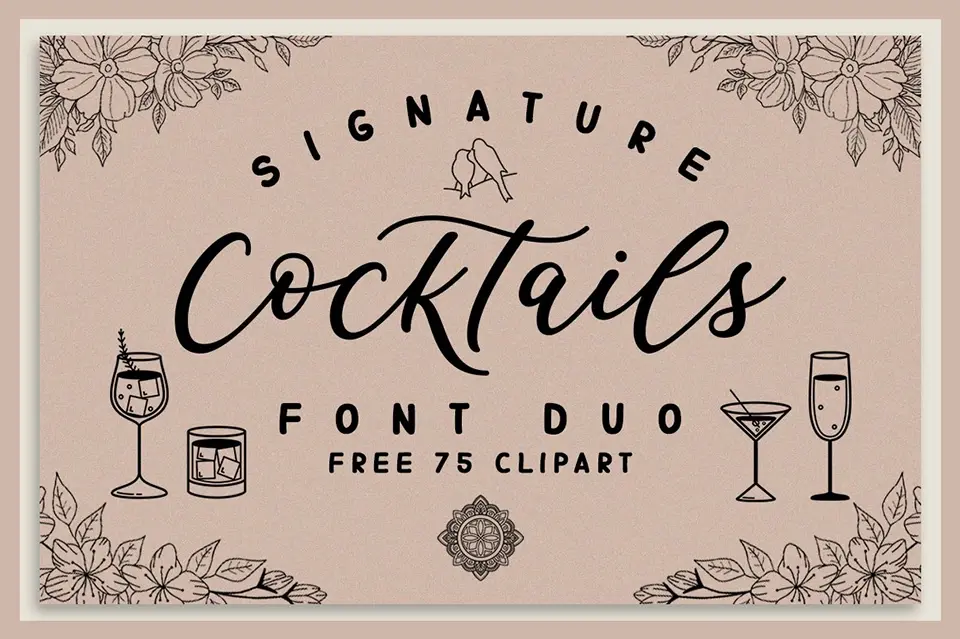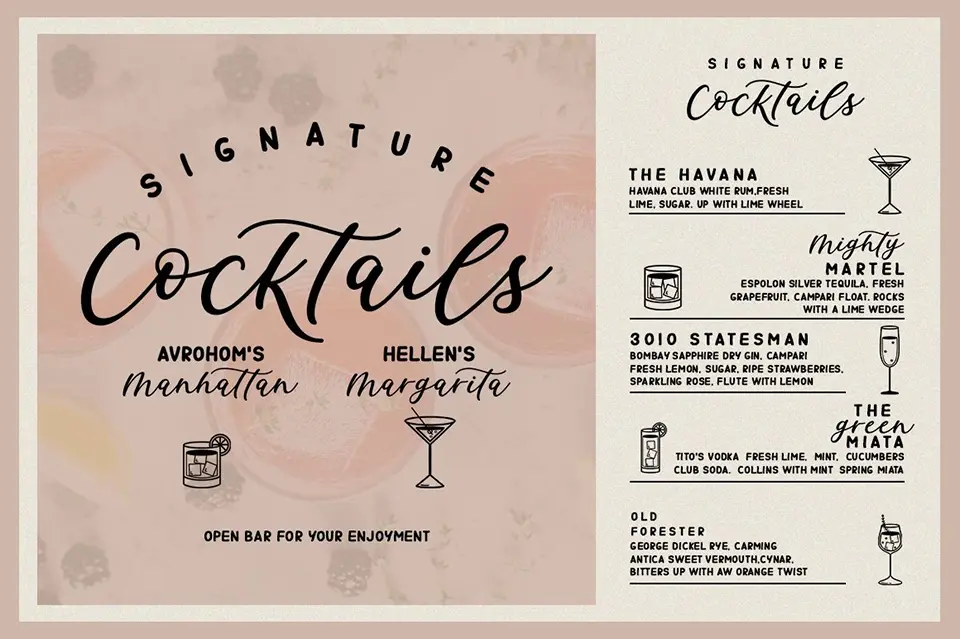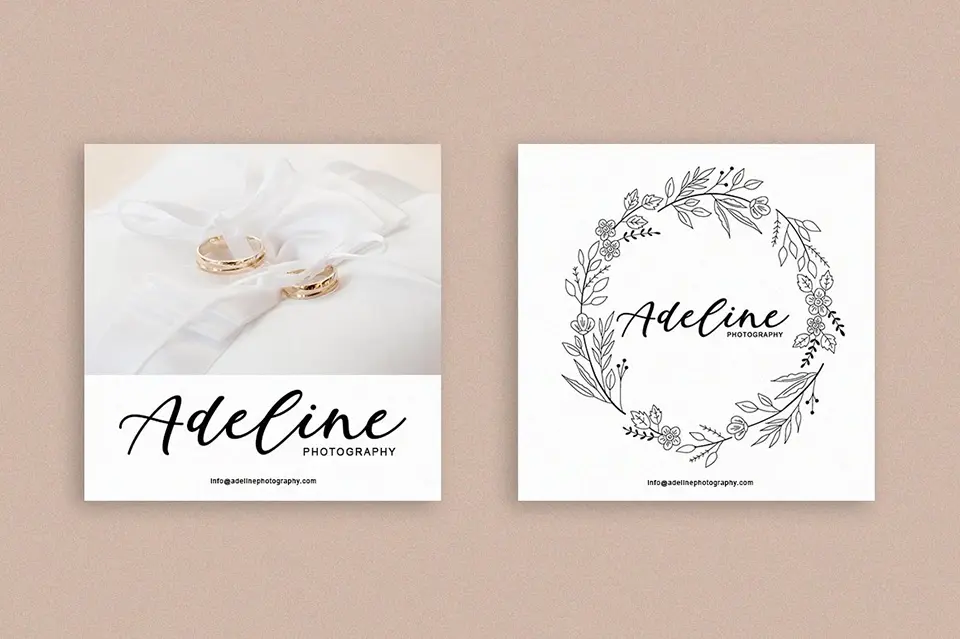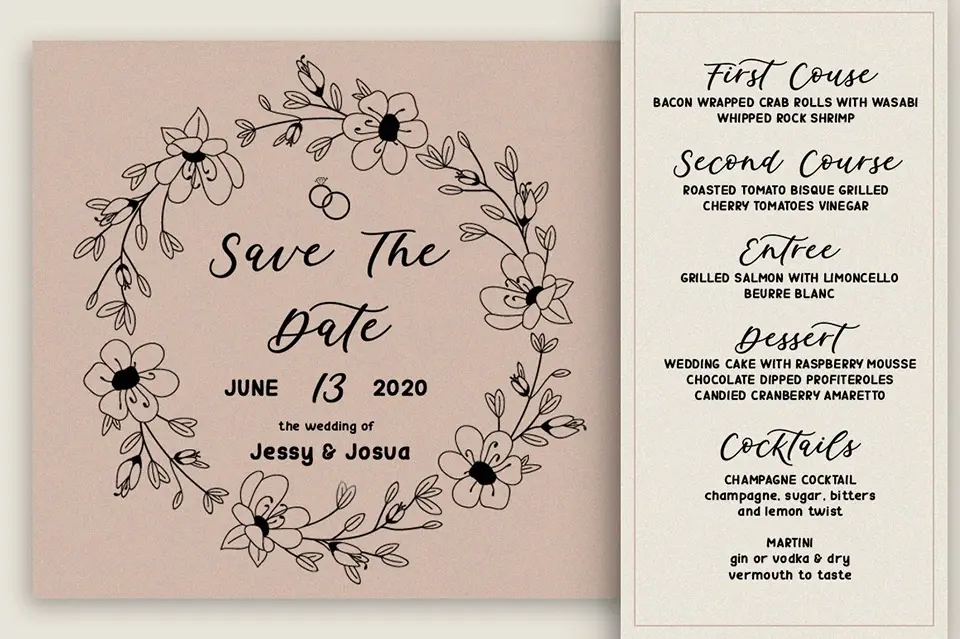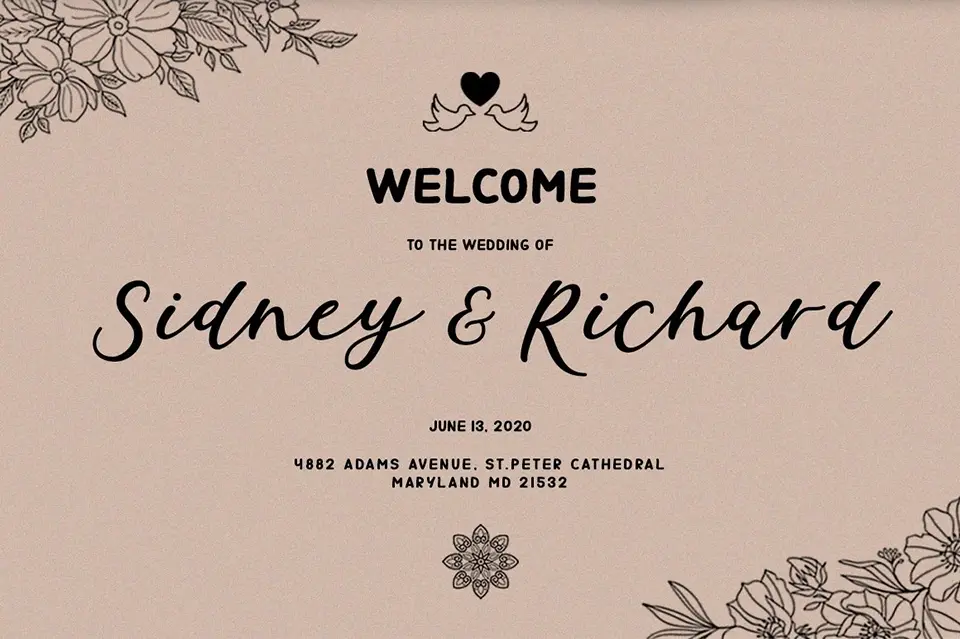
Cocktail Font
Cocktails is an elegant script font designed for personal use, featuring charming calligraphy-inspired letterforms perfect for sophisticated designs. This versatile typeface is ideal for creating invitations, event materials, branding projects, and decorative typography that demands elegance and refinement. With its flowing, signature-style script characteristics, it brings a refined, hand-crafted touch to any creative composition.